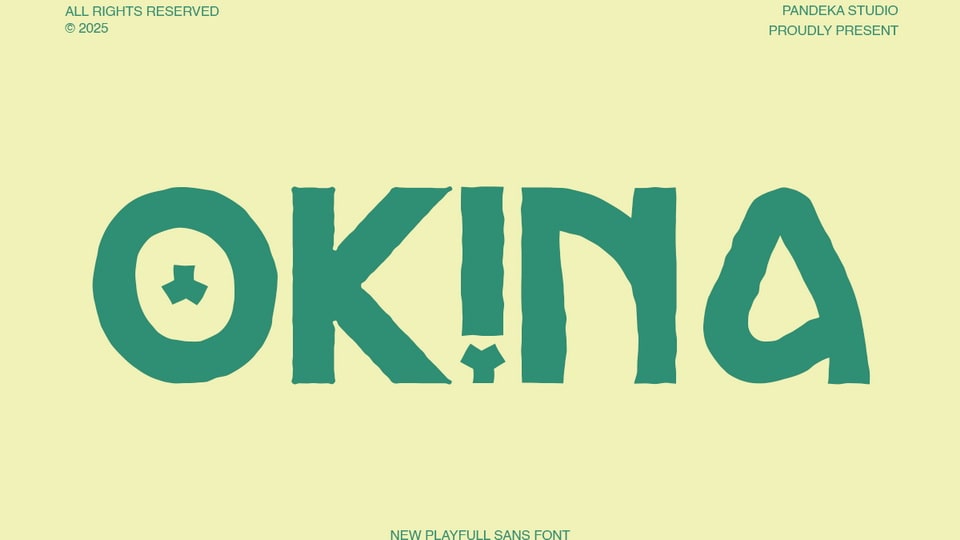
Download Okina font, a bold and playful food-themed display typeface designed to bring flavor and fun to your creative projects with chunky letterforms, rounded details, and quirky charm.